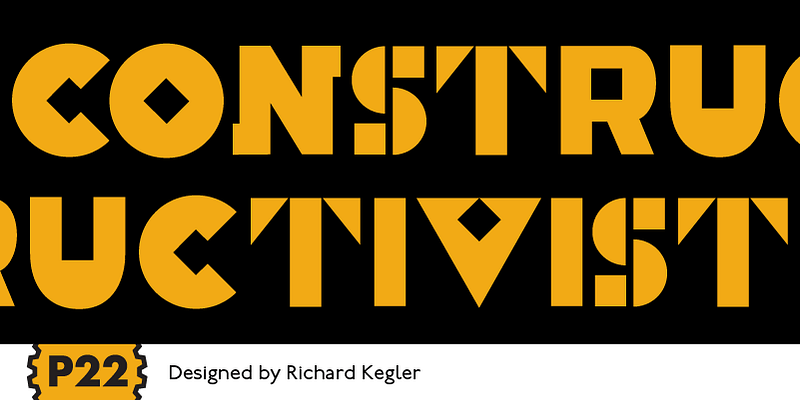
P22 Constructivist Pro Font Free Download is a bold, modern sans-serif typeface inspired by the constructivist art movement. With its geometric shapes, strong lines, and clean design, this font is perfect for projects that require a contemporary, industrial aesthetic. It's ideal for branding, posters, signage, headlines, and graphic design projects that aim for a sleek and powerful visual impact.
P22 Constructivist Pro Font offers versatility for both large display text and smaller body copy, maintaining excellent legibility and strong visual appeal. It integrates seamlessly with design tools like Adobe Illustrator, Photoshop, Figma, and Canva, providing flexibility for both print and digital projects.